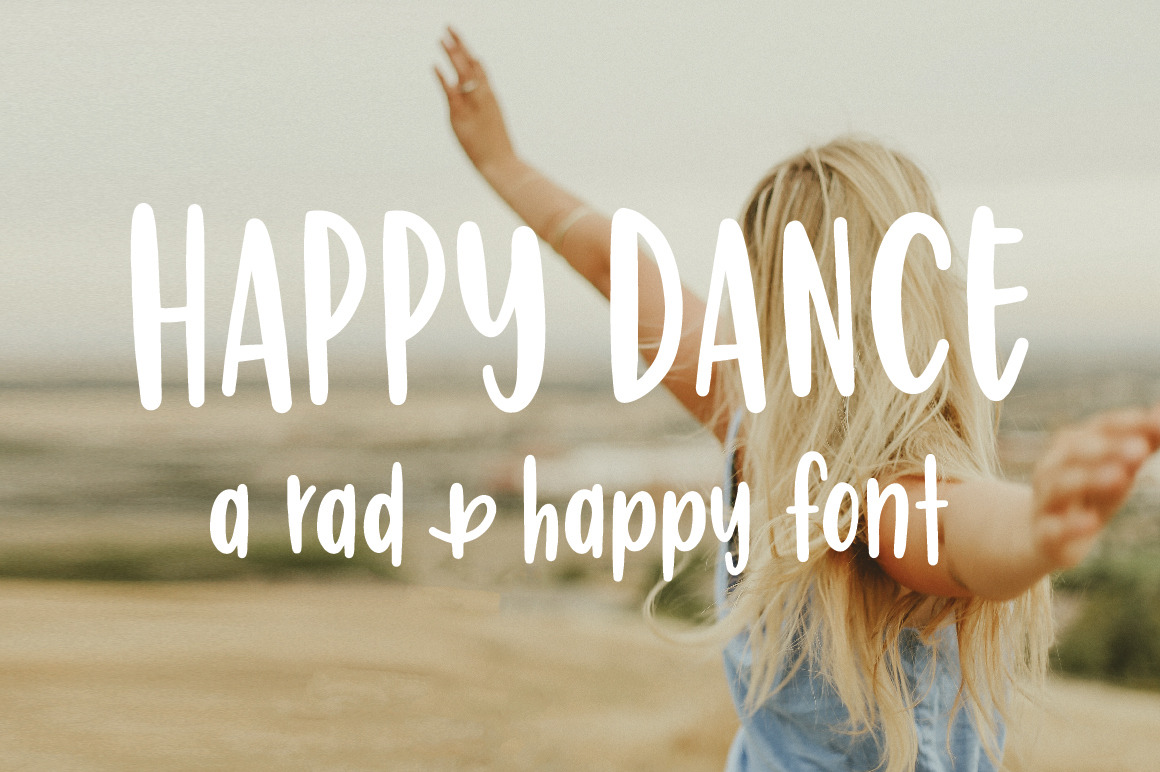
Happy Dance | Hand Lettered Font
This hand lettered rad and happy font is a must have for all your design needs. It is clean and legible, while also adding a lot of spunk and fun.
Happy Dance comes as a single font file packed full of great features. It contains a full set of lower & uppercase letters, along with punctuation and numerals.